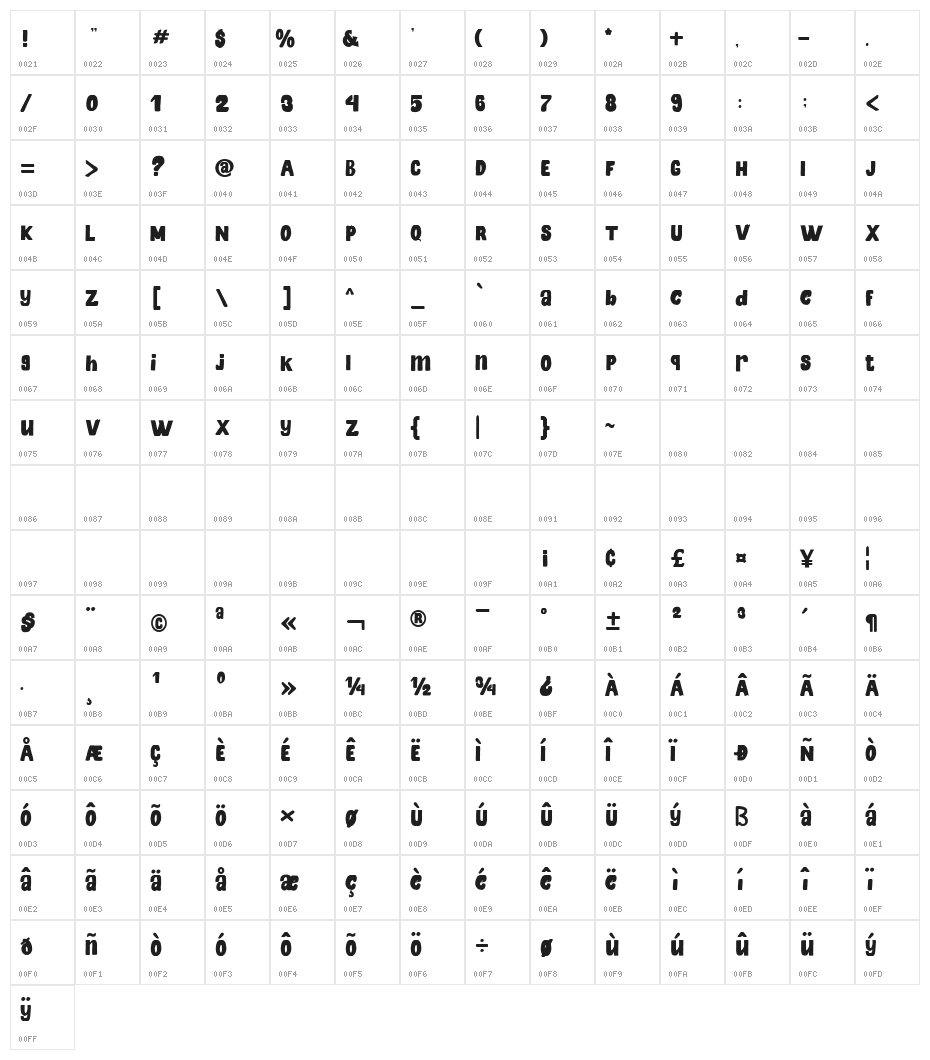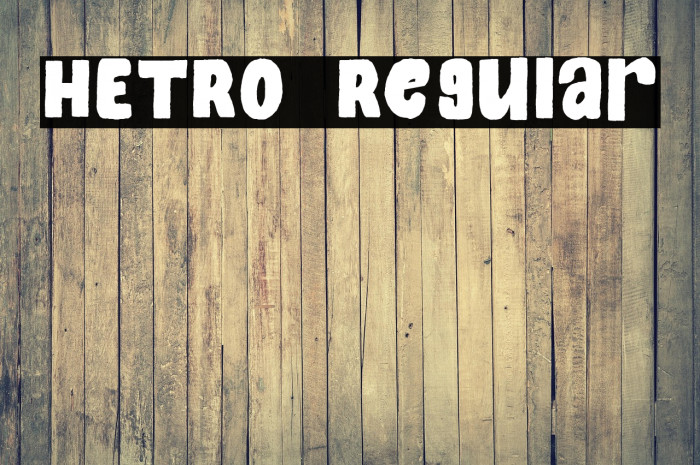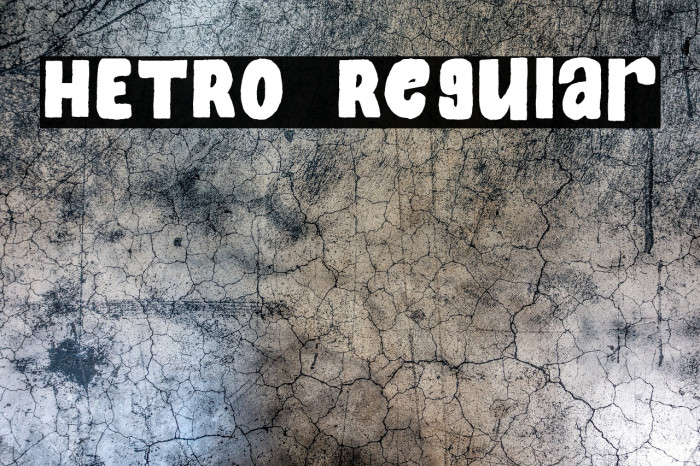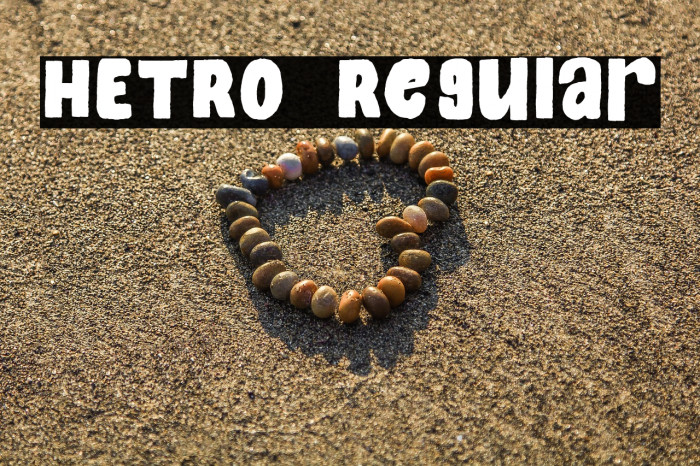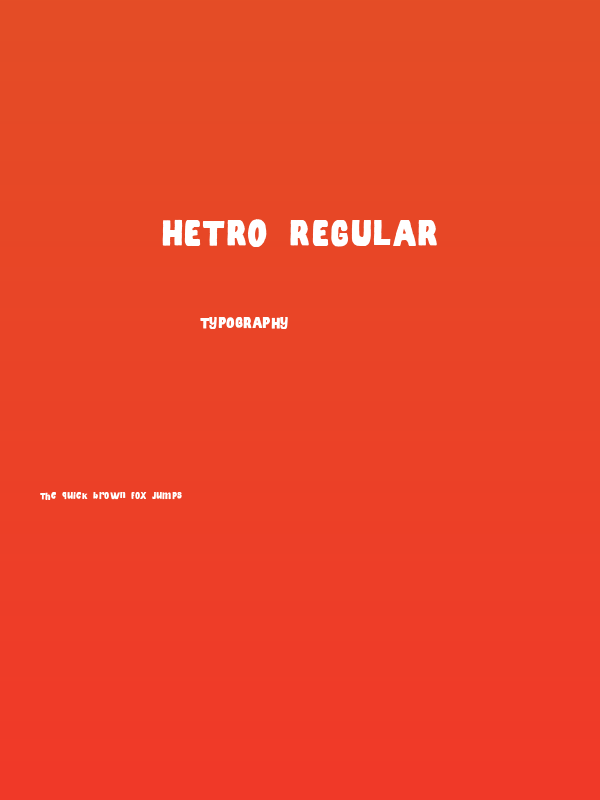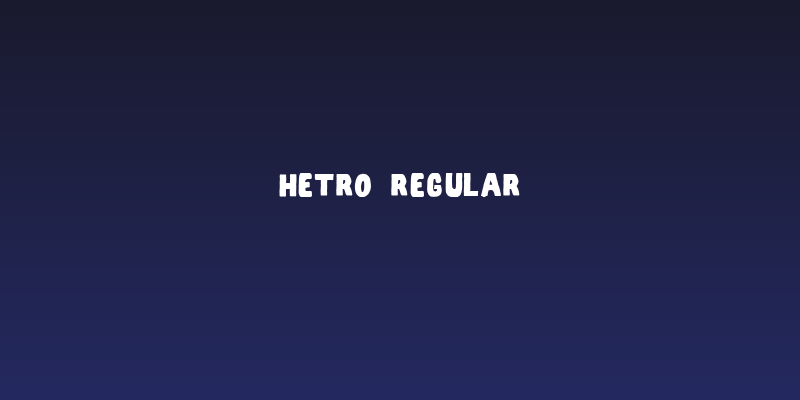
HETRO Regular Font
HETRO Regular Description
This font features a bold and playful style with a slightly distressed texture, giving it a hand-crafted appearance. The characters are thick and rounded, providing a strong visual impact. The uppercase and lowercase letters maintain a consistent weight, while the numbers and special characters complement the overall design. The font's unique style makes it suitable for creative and informal applications, adding a touch of personality and charm.
| Overall Style | Playful, Hand-crafted |
| Proposed Projects | Ideal for posters, children's books, playful branding, and creative projects. |